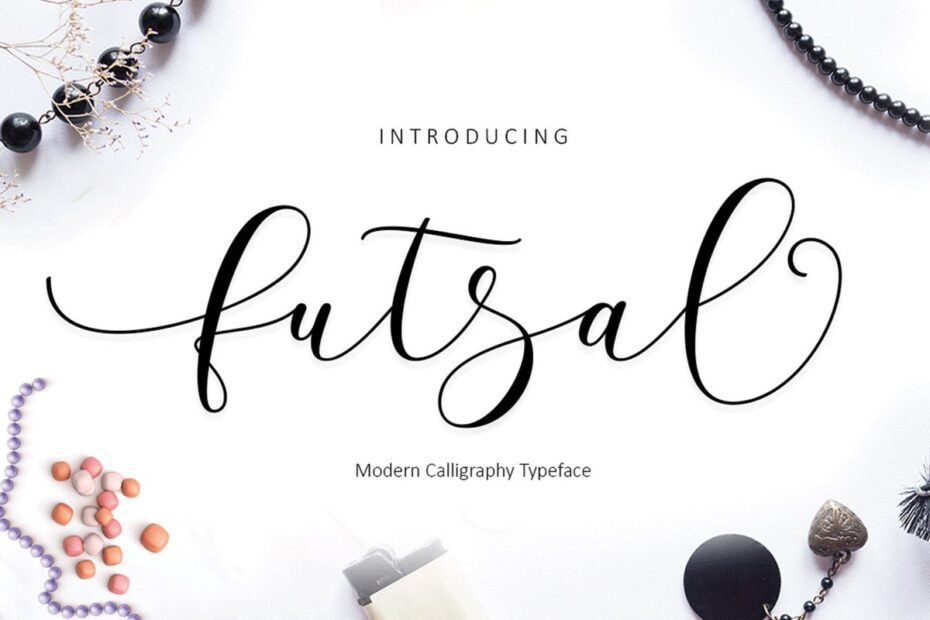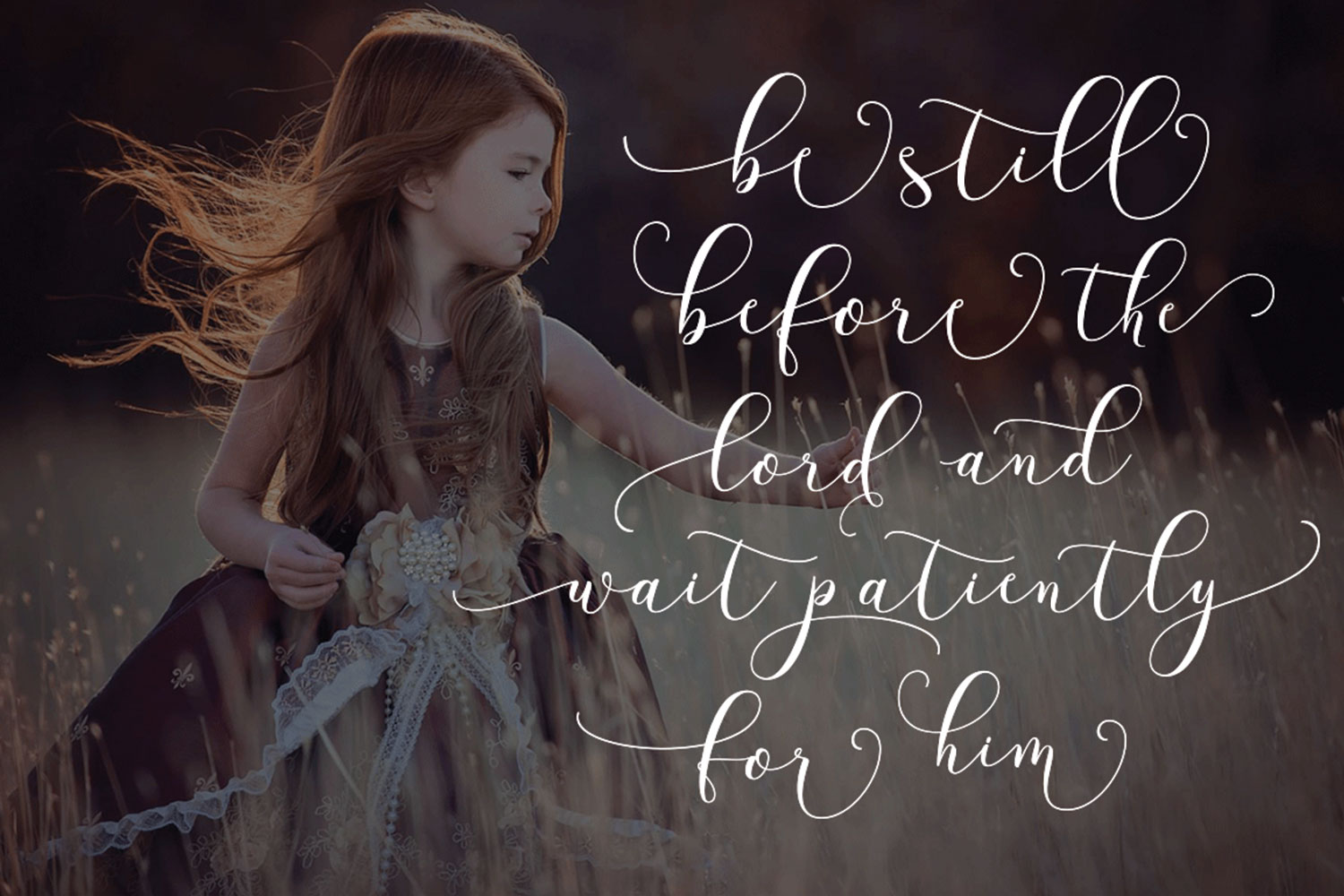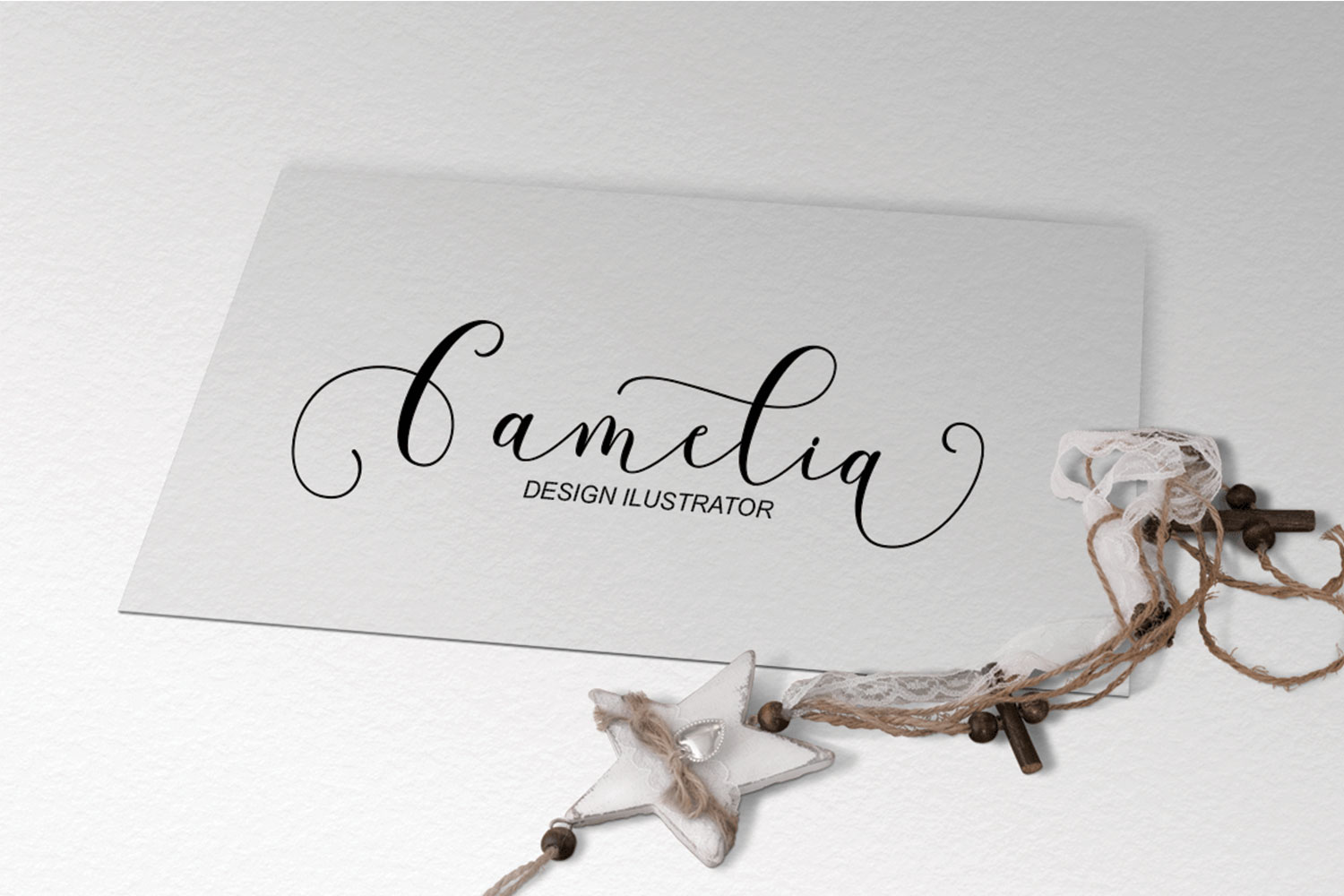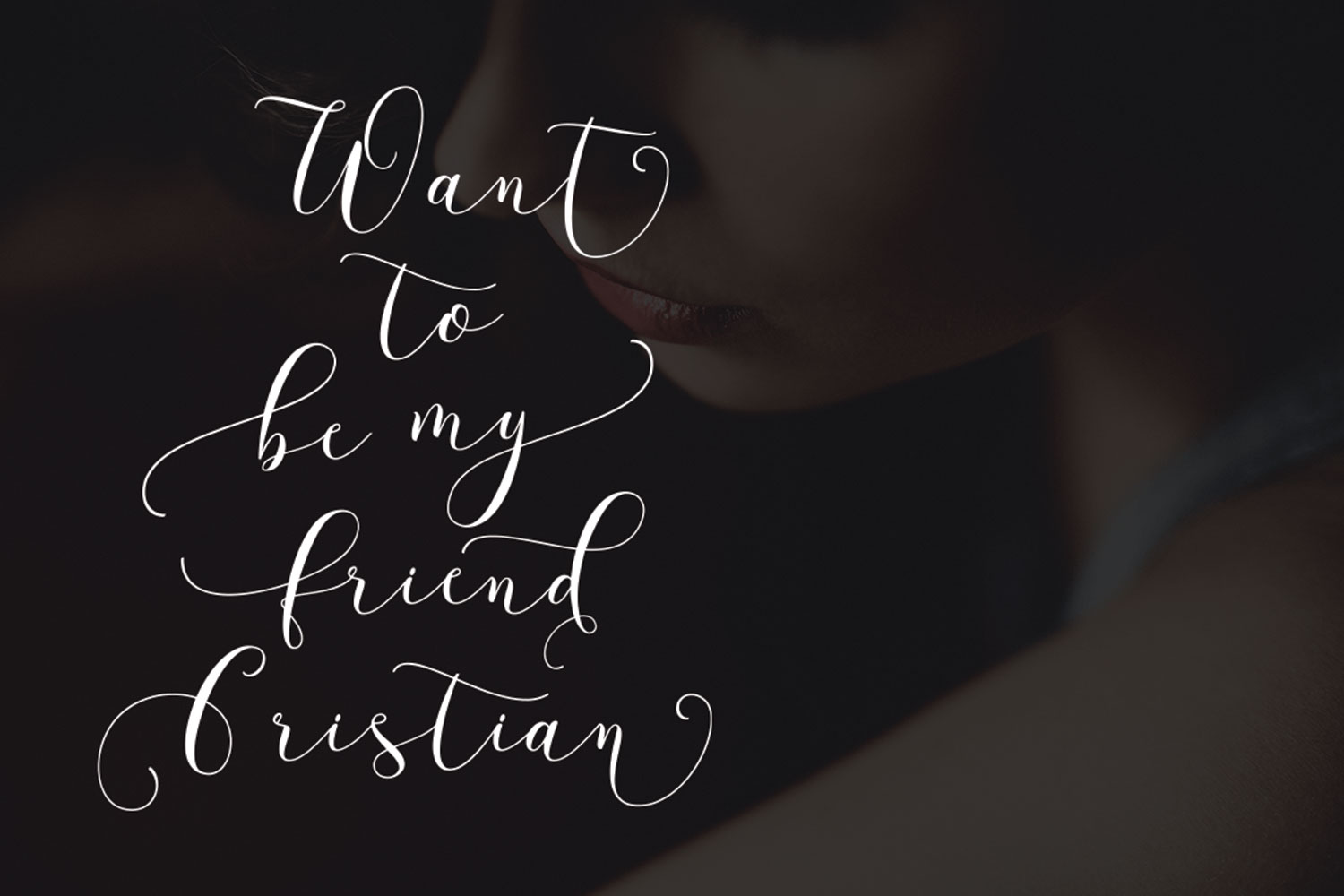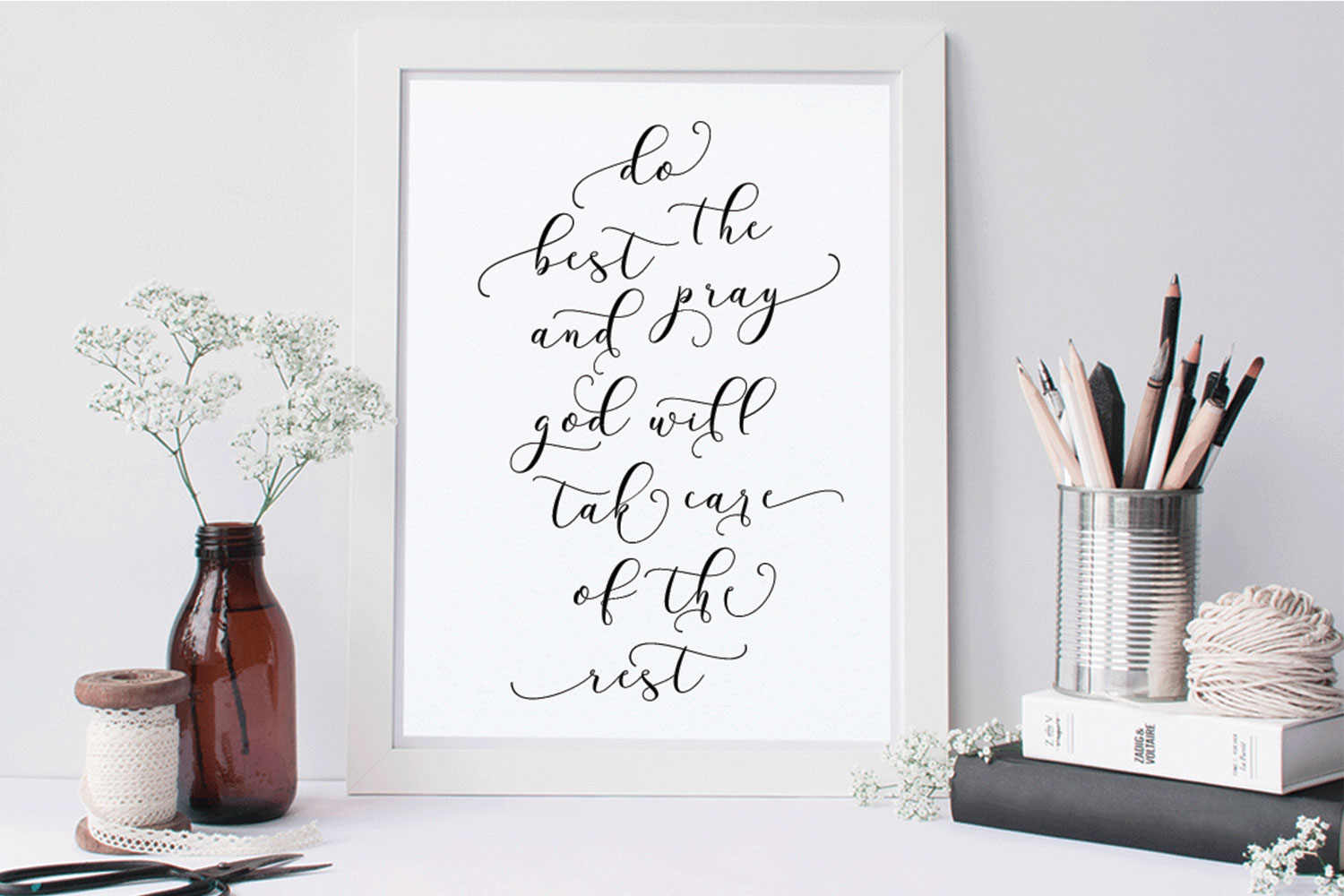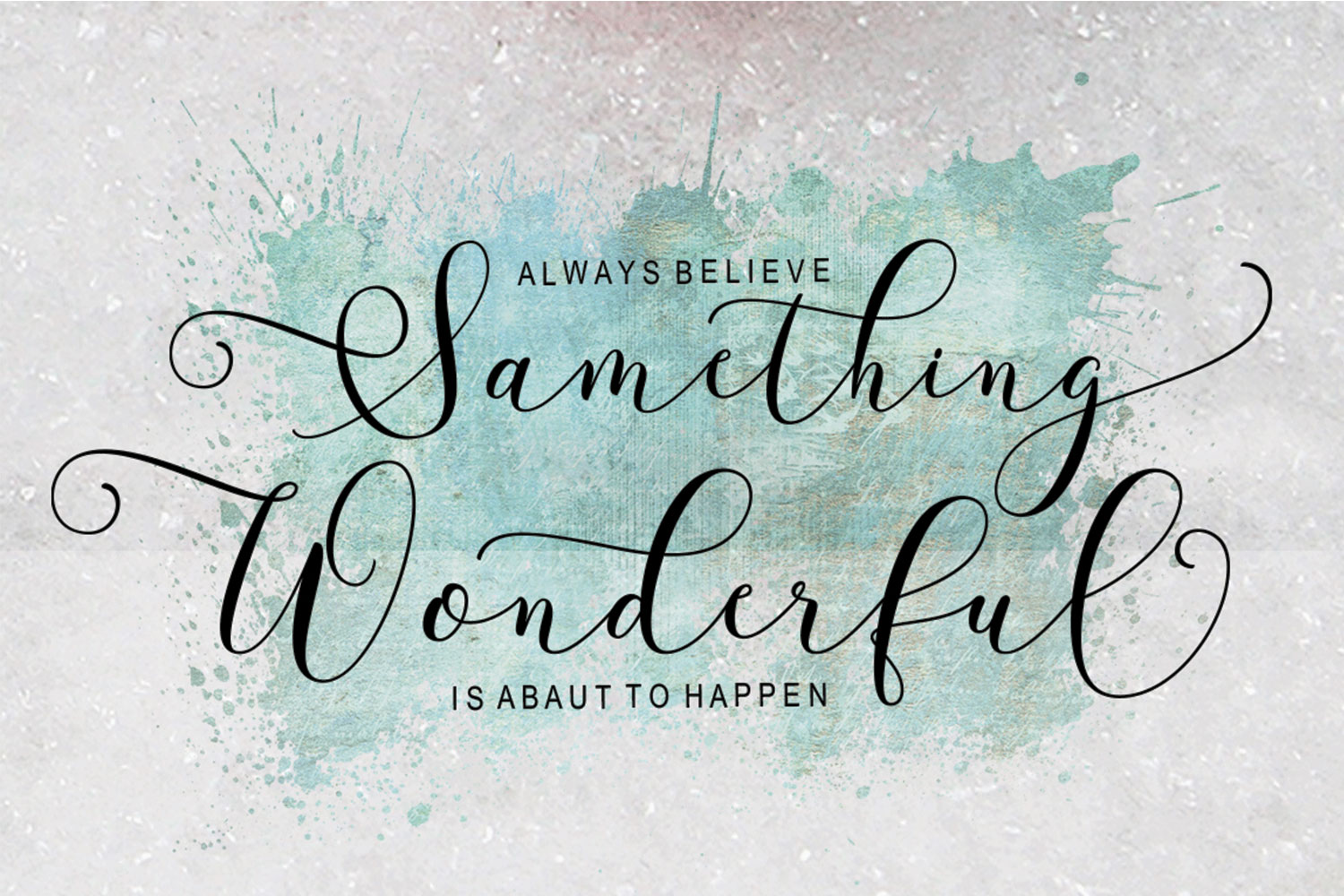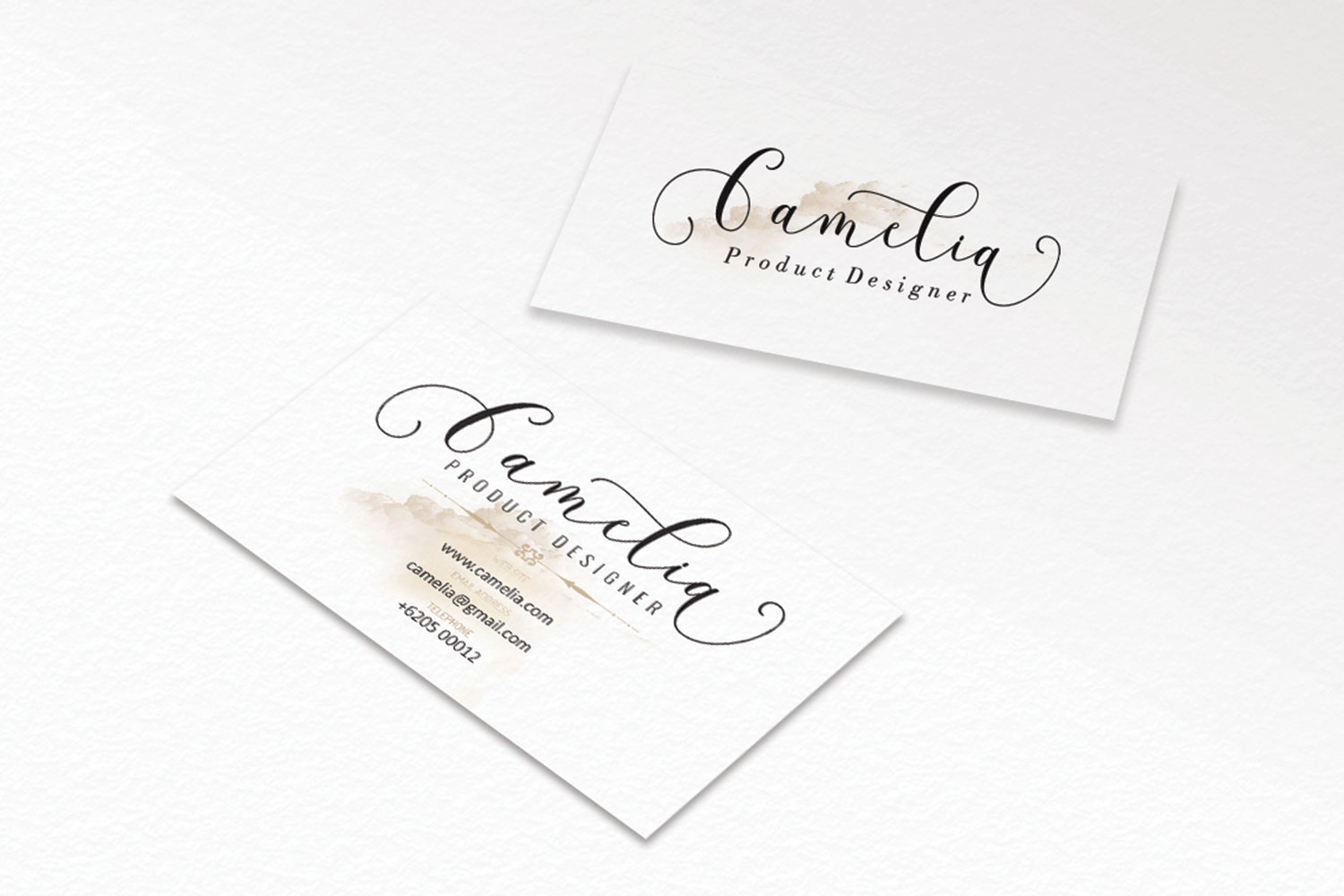
The Perfect Blend of Classic and Modern: Unleashing the Beauty of Futsal Script Font
Imagine you’re sitting at your desk, staring at a blank page, and suddenly a spark of creativity hits you. You envision a beautiful, flowing script that captures the essence of your message. That’s exactly what the Futsal Script Font is designed to do – to bring your words to life with its unique blend of classic and modern letter structure.
This stunning font script is more than just a pretty face; it’s a powerful tool for designers looking to add a touch of elegance to their projects. With its neatly crafted letters, Futsal Script Font is perfect for creating beautiful and clean text that’s sure to impress. Whether you’re working on a wedding invitation, a logo, or a marketing campaign, this font is sure to elevate your design game.
- Unique Characteristics: Futsal Script Font features a handwritten, cursive style with a modern twist, making it perfect for creative and informal designs
Futsal Script Font Review
Futsal Script Font is a modern, cursive font that has some amazing qualities to it. ✨ The first thing I noticed is its elegant and flowing lines, making it perfect for creative projects that require a touch of sophistication. ✨ The font is also highly legible, even at smaller sizes, which is a major plus in my book.
- ✨ Beautiful, flowing lines that add a touch of elegance to any project
- ✨ Highly legible, even at smaller sizes
- ✨ Suitable for a wide range of creative projects, from logos to posters
However, there are some limitations to consider. ⚠️ One of the main issues is the font’s lack of versatility. It’s primarily designed for display purposes, and it may not be the best choice for body text. Additionally, the font can feel a bit overused, especially in projects where a more unique font is desired.
- ⚠️ Limited versatility, primarily designed for display purposes
- ⚠️ Can feel overused in projects where a more unique font is desired
Overall, I think Futsal Script Font is a great addition to any designer’s toolkit. While it may not be perfect, its elegant lines and high legibility make it a great choice for creative projects. Just be sure to use it wisely and in the right context.
Getting the Most Out of Futsal Script Font
Use Futsal Script Font for titles, headings, and quotes to add a touch of elegance and sophistication. Experiment with different font sizes and colors to create a visually appealing design.
Futsal Script Font is perfect for:
– Branding and logo design
– Social media graphics and ads
– Event promotional materials
Alternatives to Futsal Script Font
Playfair Display is a luxurious and elegant script font ideal for high-end branding, invitations, and special occasions. It features intricate details and connections between letters, making it perfect for formal and sophisticated designs. Compared to Futsal Script Font, Playfair Display has a more classic and refined look, while Futsal Script Font has a more casual and modern feel.
Great Vibes is a modern and stylish script font suitable for creative and artistic designs. It features a unique blend of handwritten and cursive elements, making it perfect for fashion, lifestyle, and entertainment brands. Compared to Futsal Script Font, Great Vibes has a more dynamic and expressive look, while Futsal Script Font has a more straightforward and simple design.
Carolyna Pro is a modern and elegant script font ideal for luxury brands, high-end fashion, and sophisticated designs. It features a unique blend of handwritten and cursive elements, making it perfect for creating a sense of luxury and exclusivity. Compared to Futsal Script Font, Carolyna Pro has a more refined and sophisticated look, while Futsal Script Font has a more casual and modern feel.